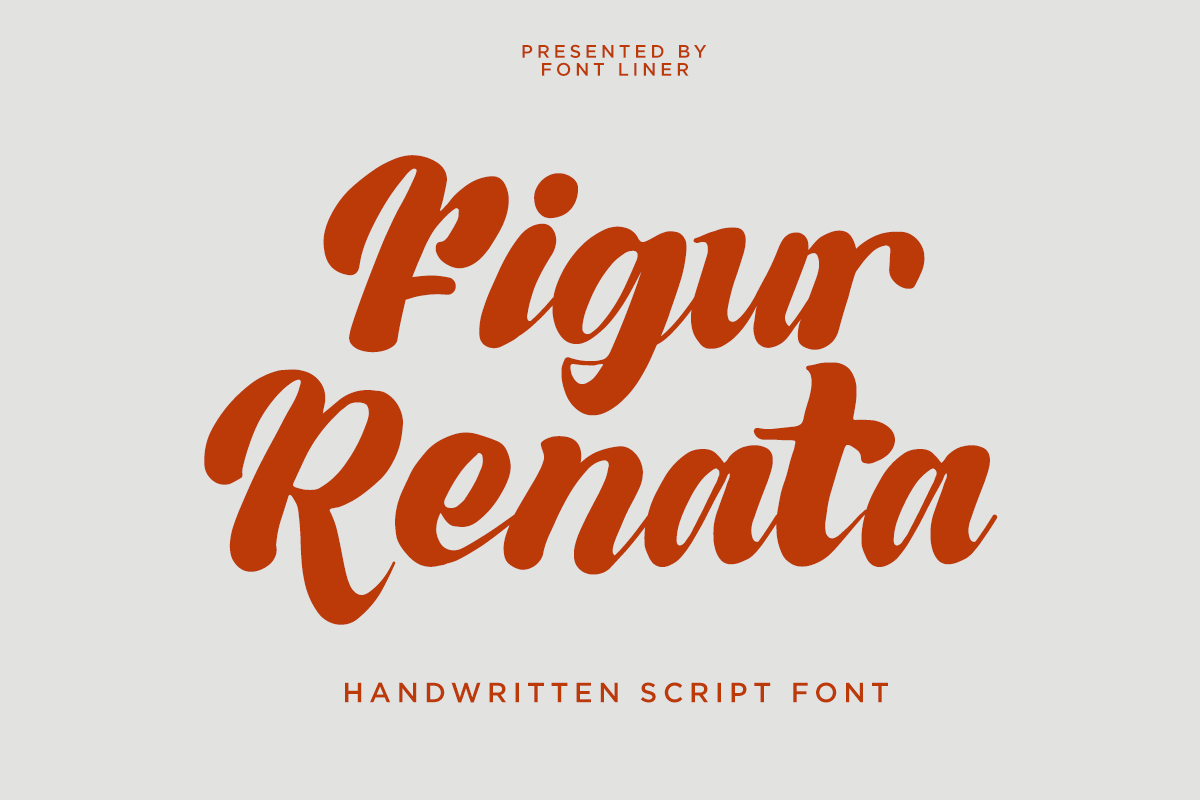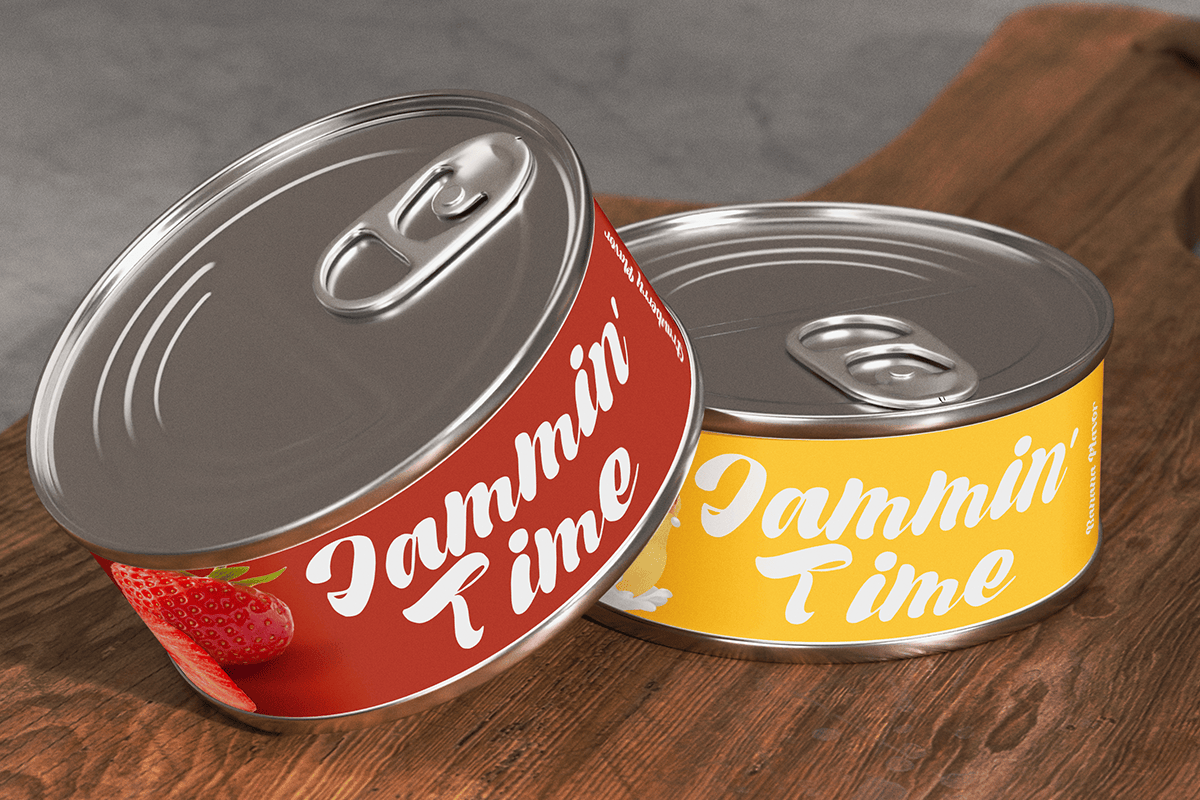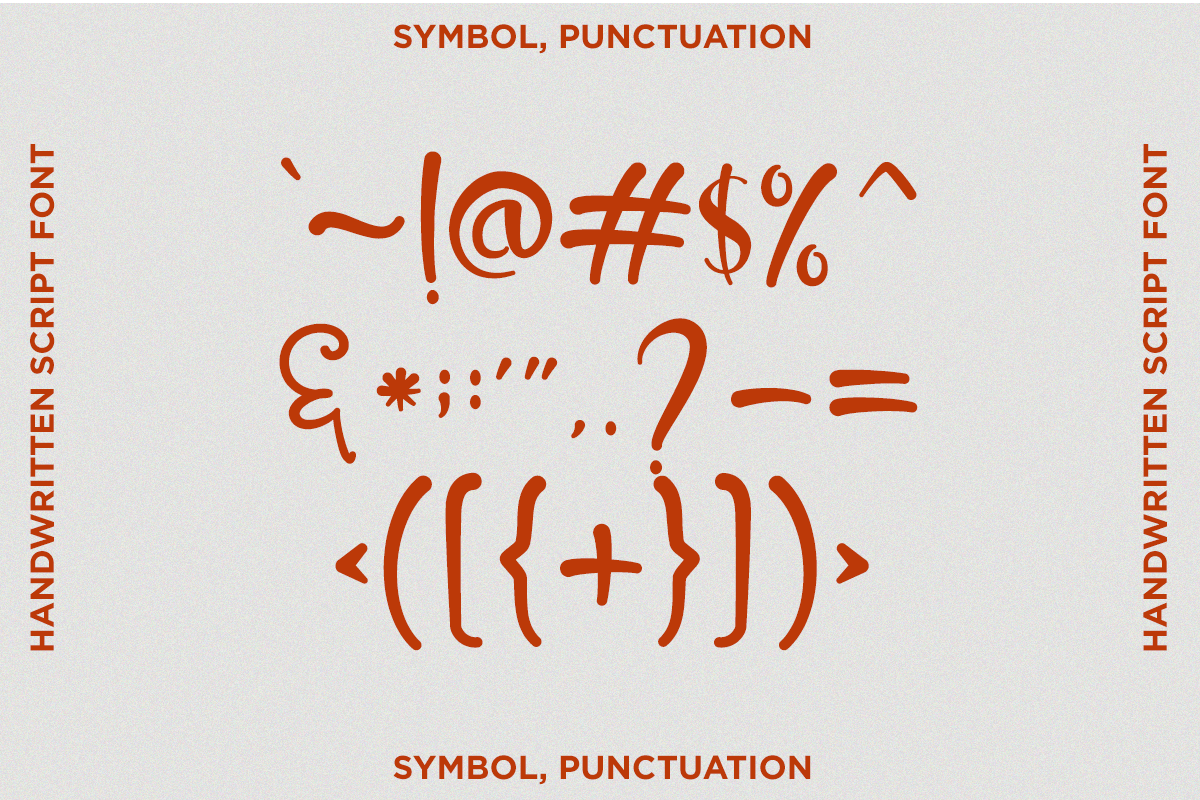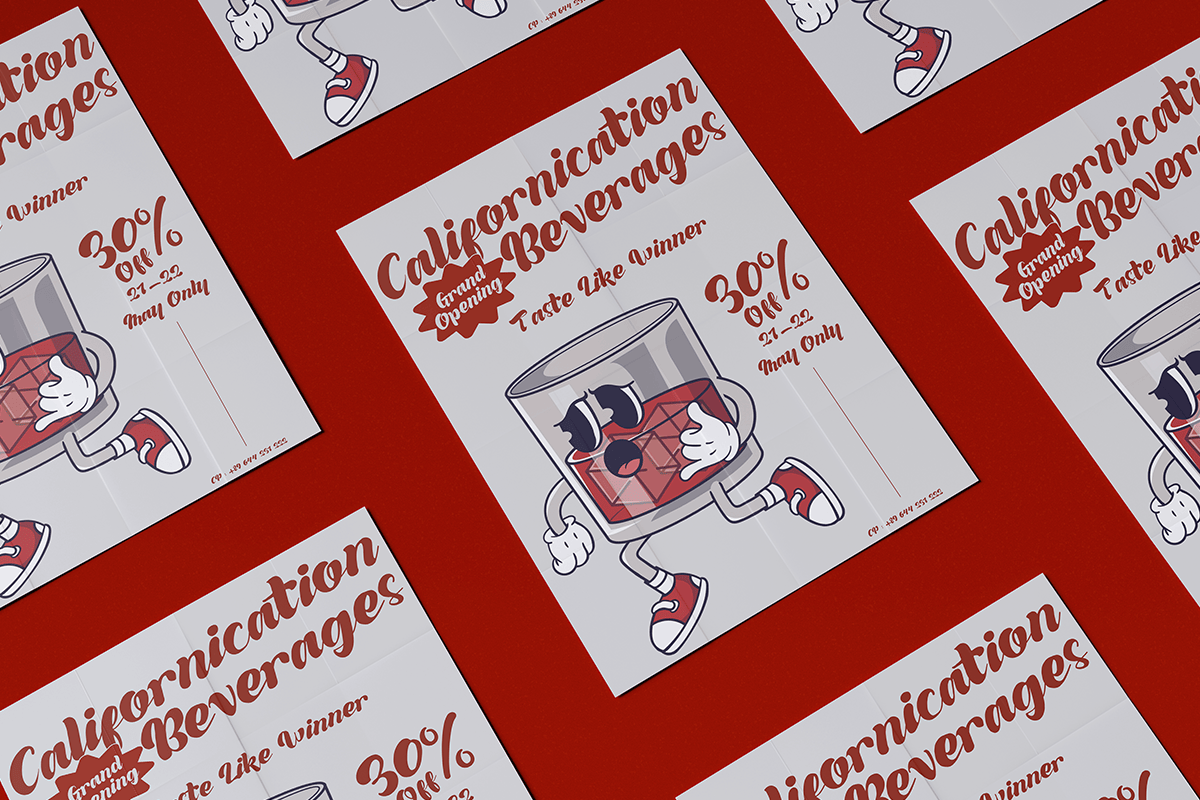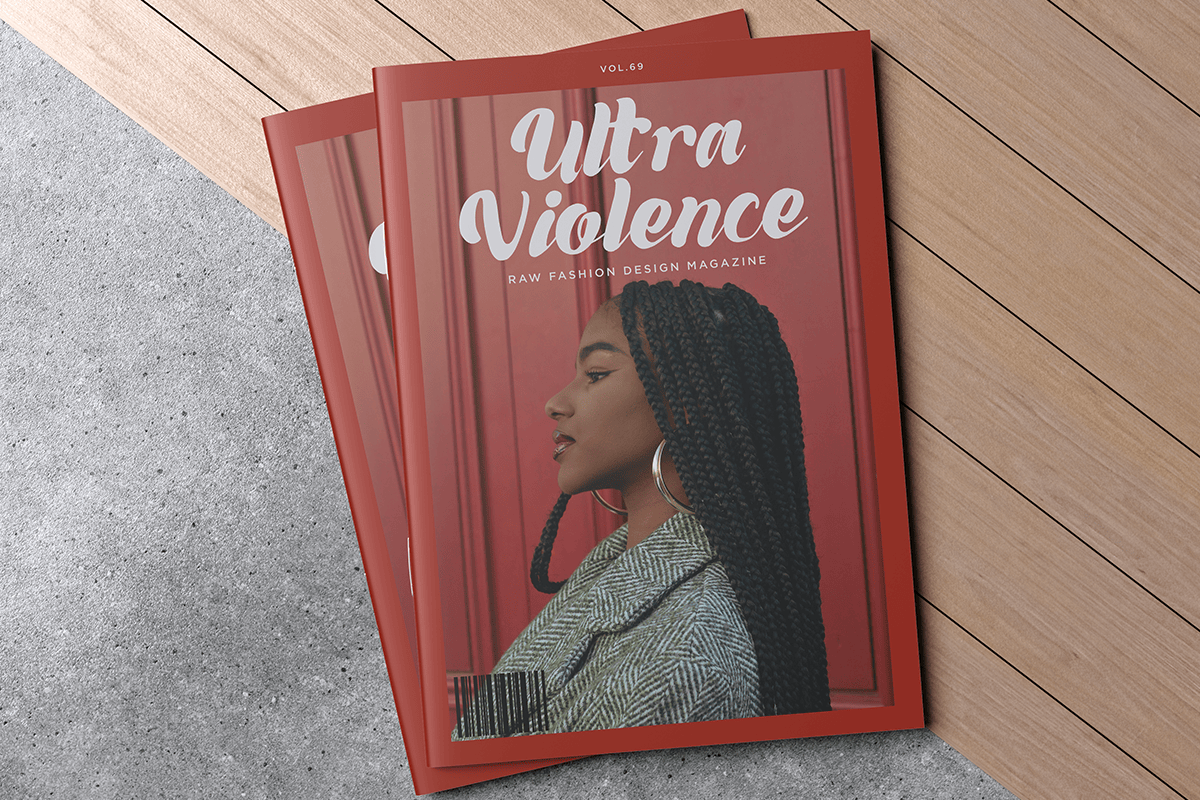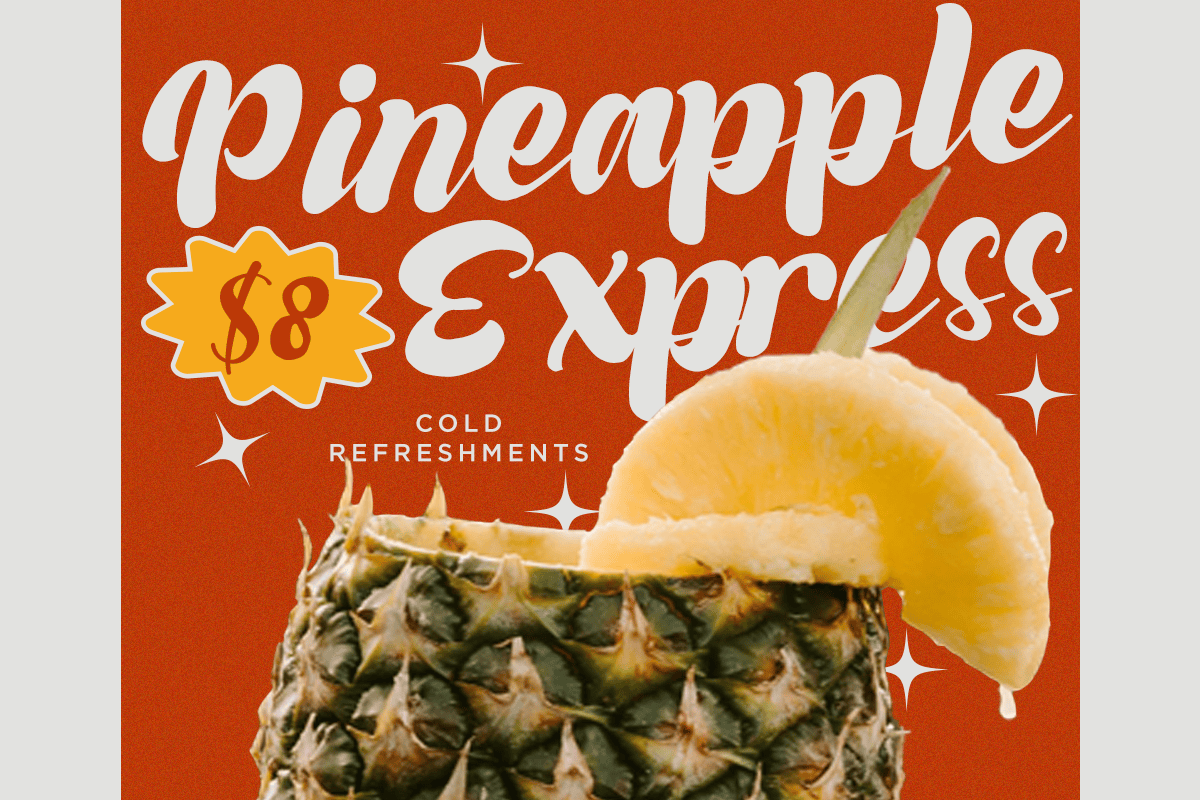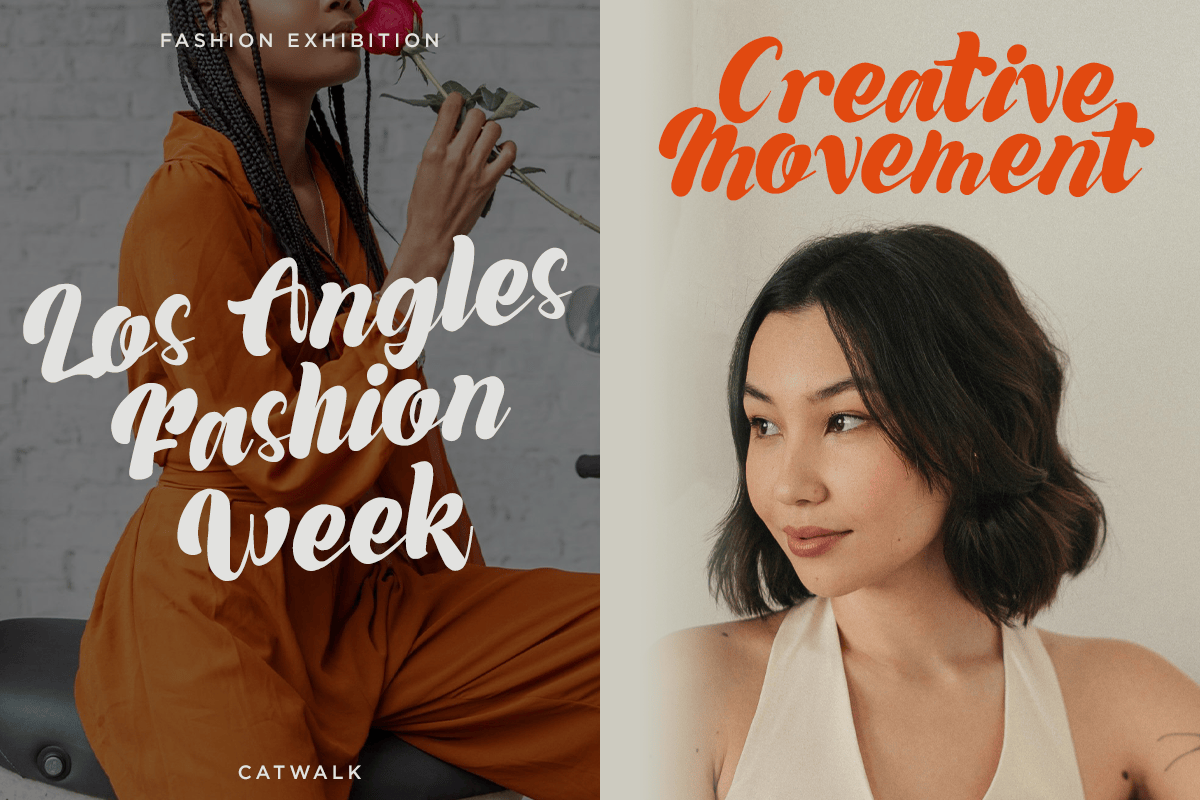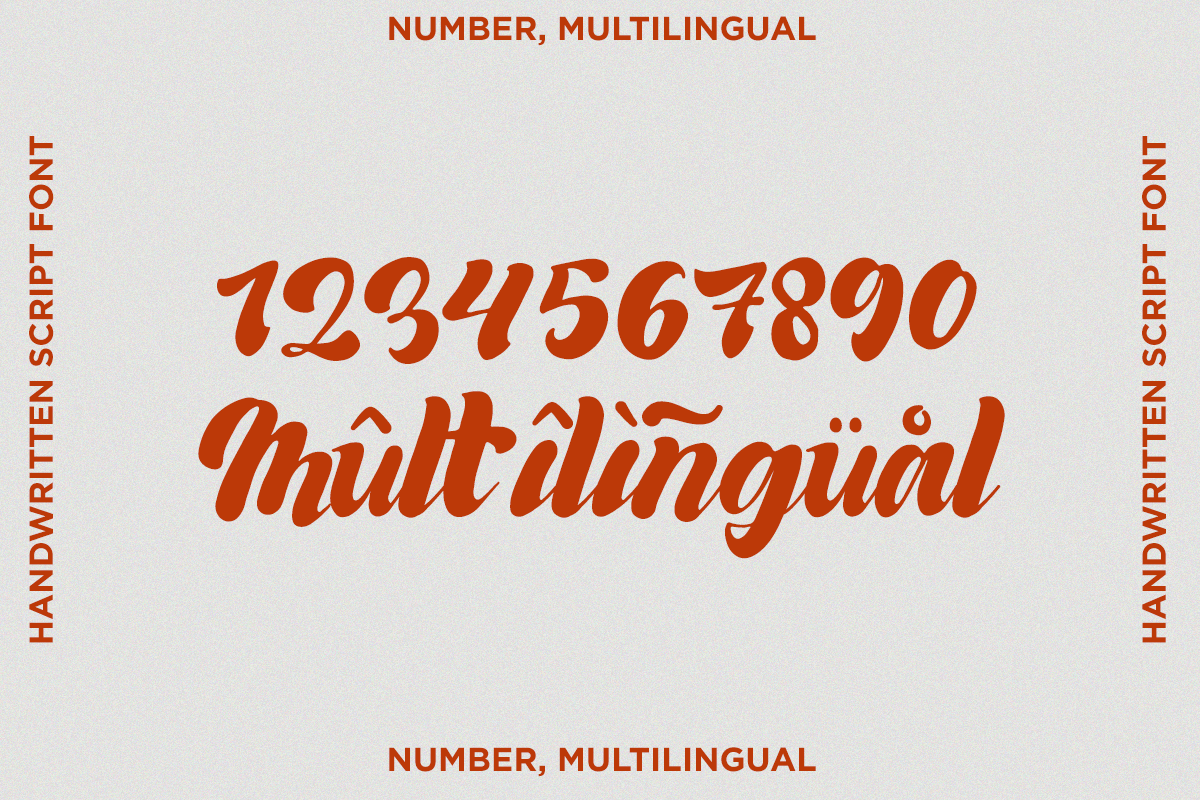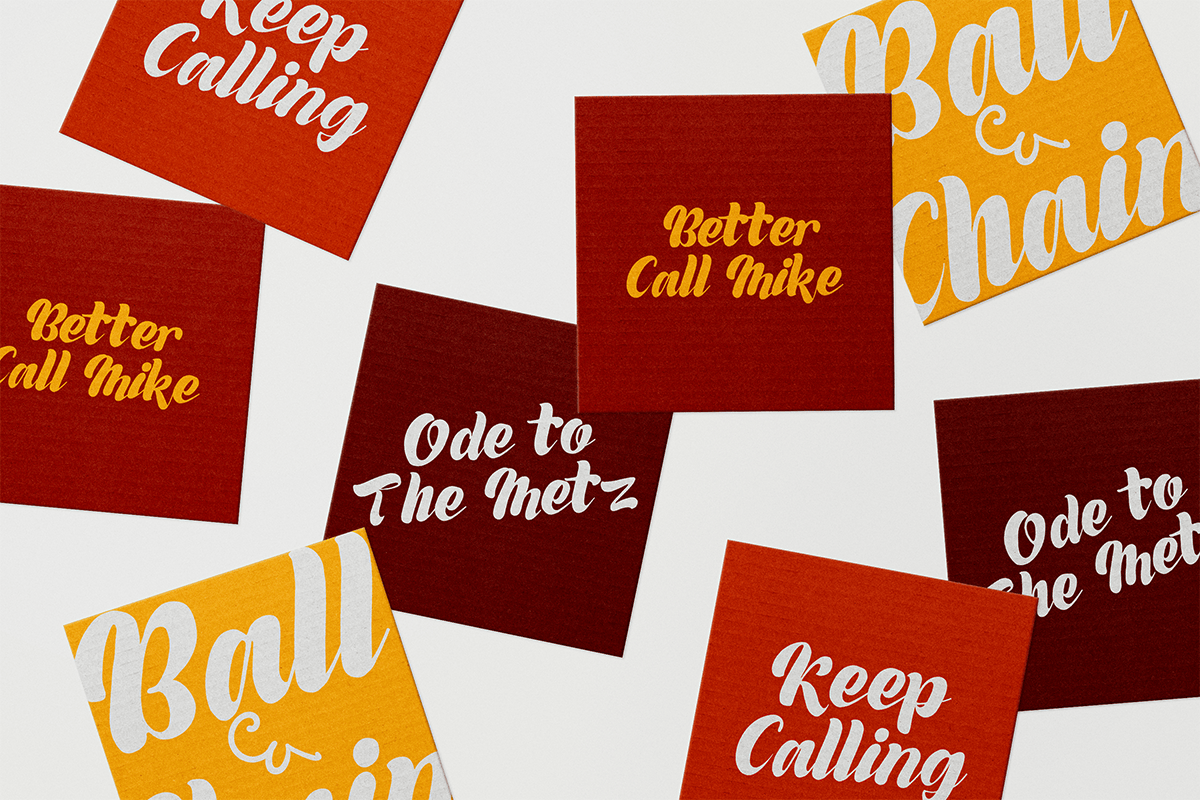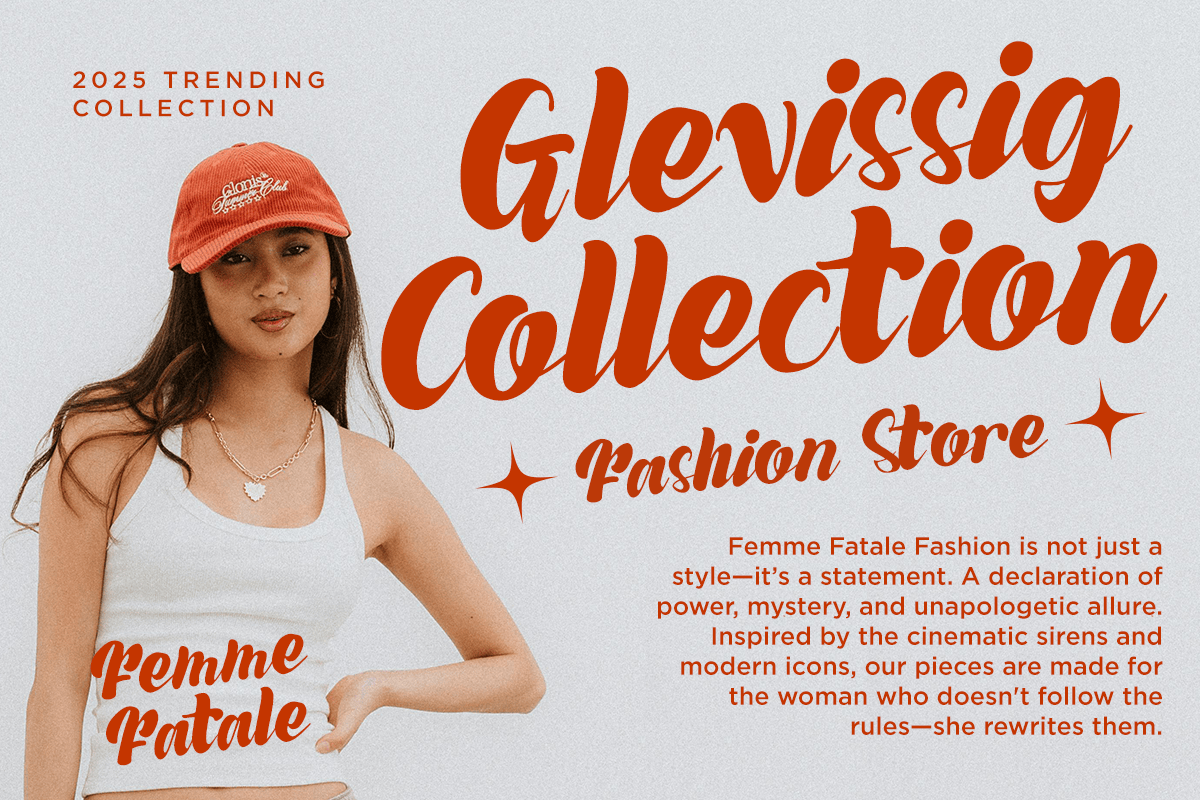
Figur Renata – Handwritten Script Font
Figur Renata is a lively handwritten script font designed to capture the natural flow of modern brush lettering. With its smooth curves, playful swashes, and authentic handwritten rhythm, this typeface brings warmth, personality, and creativity to every design. Its casual yet polished appearance makes it perfect for projects that need an expressive and approachable visual identity.
Whether you’re creating logos, product packaging, café branding, fashion campaigns, social media graphics, posters, book covers, food labels, merchandise, invitations, or advertising materials, Figur Renata delivers beautiful typography that stands out across both print and digital media. The energetic letterforms provide excellent readability while adding handcrafted charm to every headline and branding project.
Figur Renata includes uppercase and lowercase letters, multilingual support, numerals, punctuation, and symbols, making it a versatile choice for professional designers and creative entrepreneurs alike. From lifestyle brands and boutique packaging to editorial layouts and promotional campaigns, this handwritten script font offers the perfect balance of elegance, friendliness, and timeless appeal.
– Stylistic alternates
– Uppercase, Lowercase & Ligatures